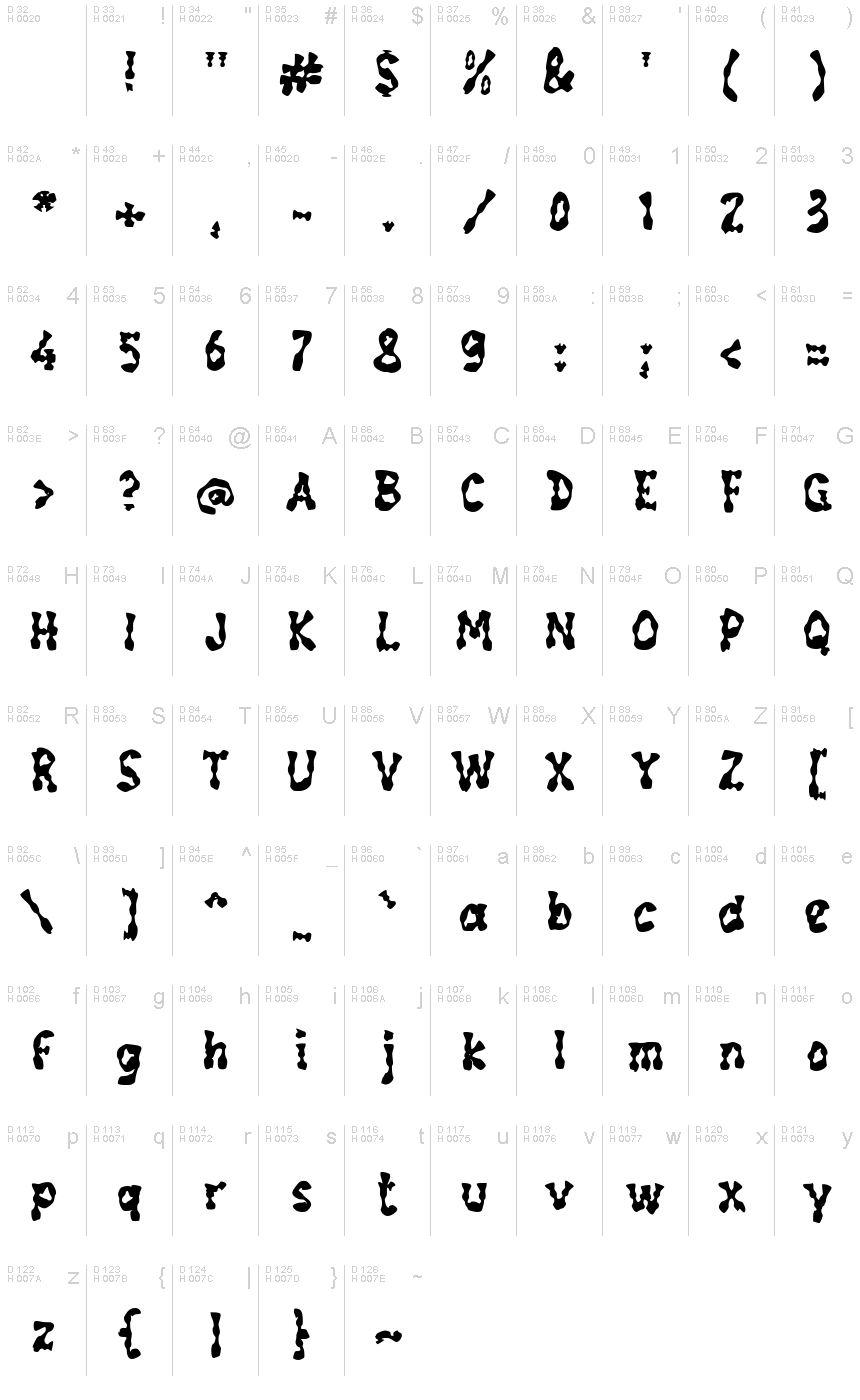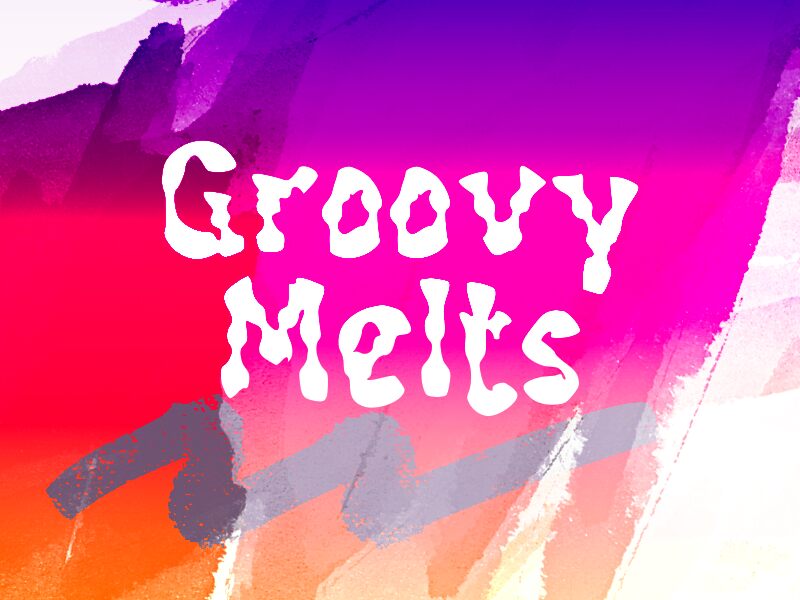
Groovy Melts
Groovy Melts is a captivating display font designed by wep. Its bold, organic strokes and playful, melted aesthetic immediately grab attention, evoking a sense of whimsical charm. The font's unique character and imperfect forms lend themselves to a retro-inspired, handcrafted feel, making it a standout choice for branding, packaging, and various creative projects.
Groovy Melts' versatility shines through its ability to seamlessly blend bold impact with a touch of quirky personality. Its distinctive style would thrive in applications ranging from logo design and event materials to editorial layouts and product packaging, adding a touch of playfulness and visual interest to any design. Whether you're crafting a vibrant, eye-catching brand identity or seeking a font to elevate your next creative endeavor, Groovy Melts by wep offers a captivating and memorable typographic solution.